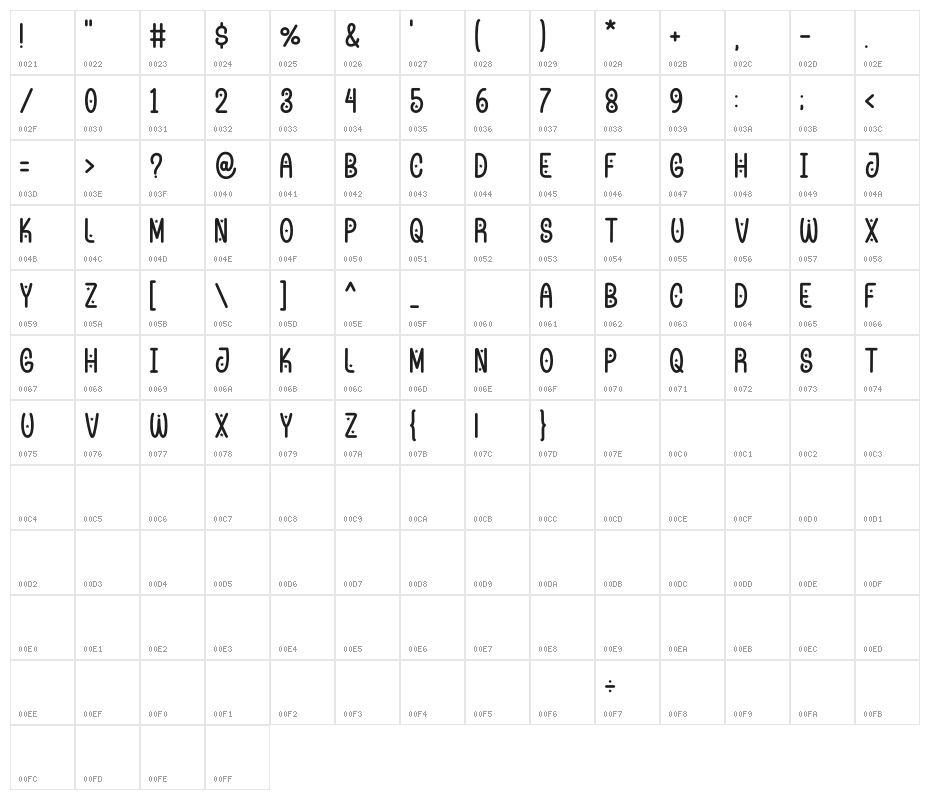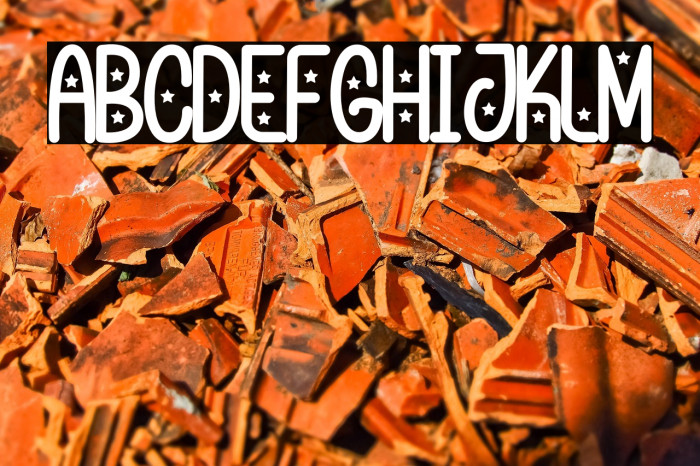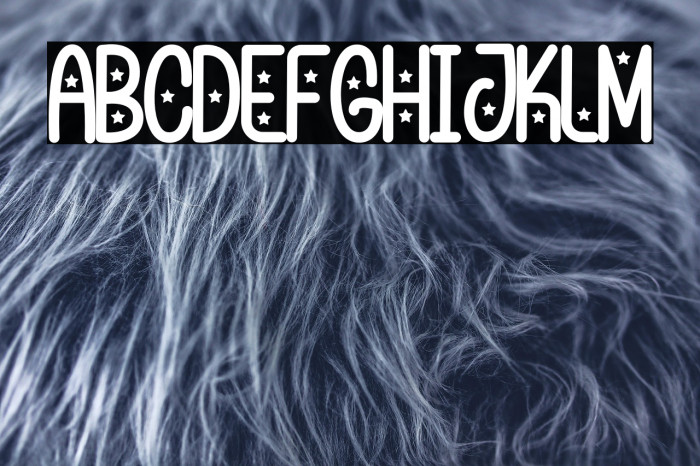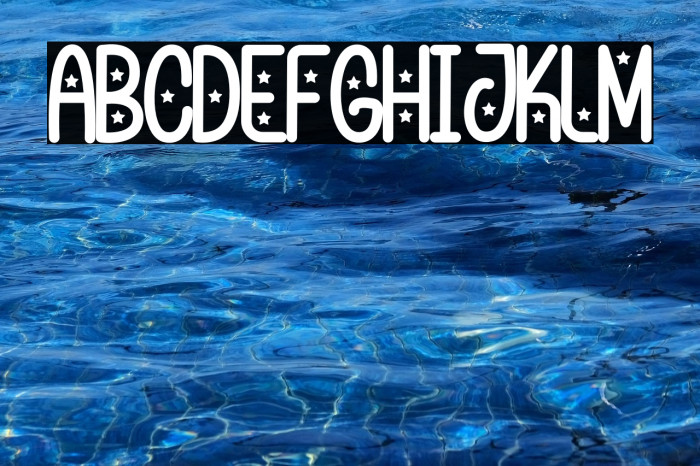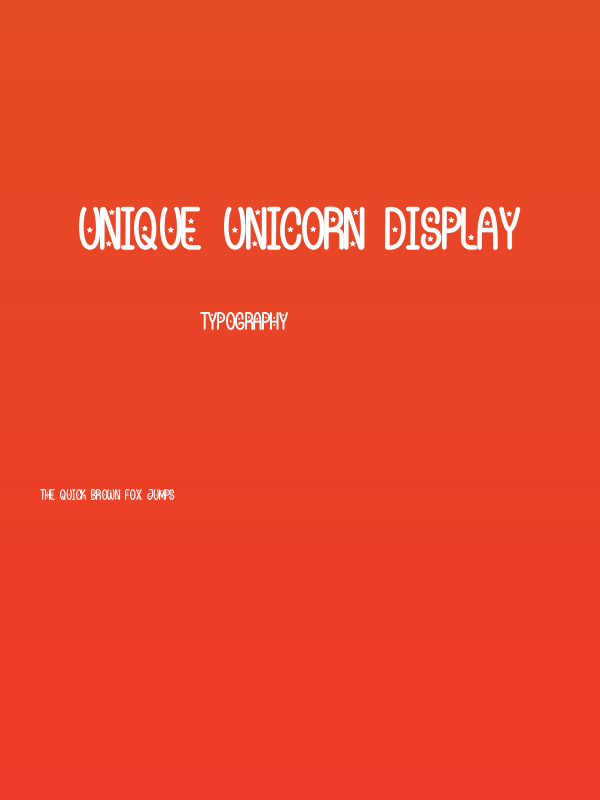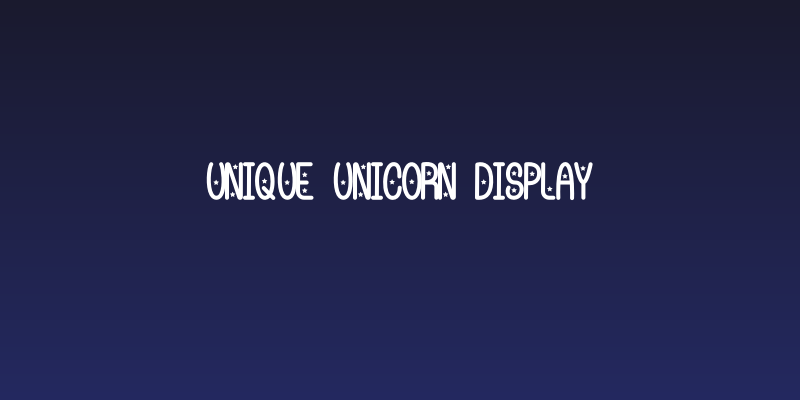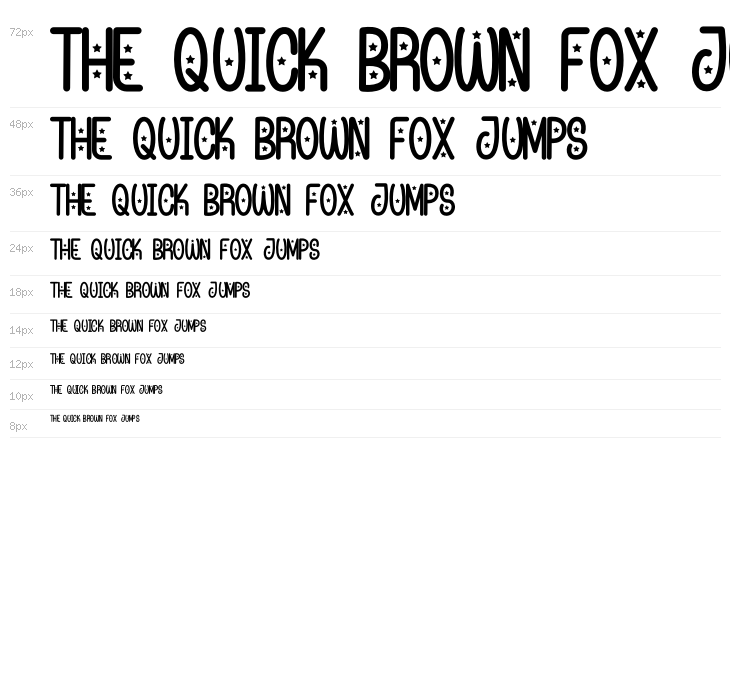
Unique Unicorn display Font
Unique Unicorn display Description
This font features a playful and whimsical design, characterized by bold, rounded letters adorned with star-shaped cutouts. The uppercase and lowercase letters maintain a consistent style, with each character exhibiting a sense of fun and creativity. The numbers and special characters follow the same decorative theme, making the font ideal for projects that require a touch of magic and imagination. Its unique style is perfect for capturing attention and adding a distinctive flair to any design.
| Overall Style | Whimsical |
| Proposed Projects | Ideal for children's books, party invitations, playful branding, and creative posters. |